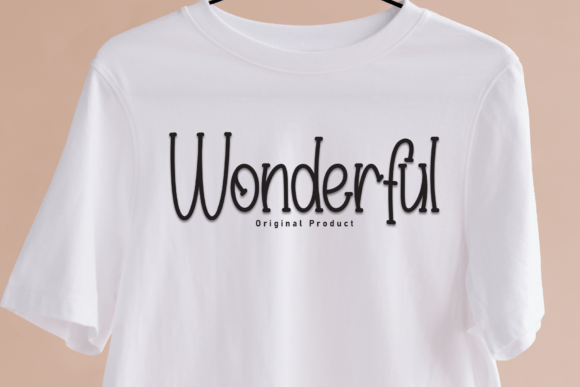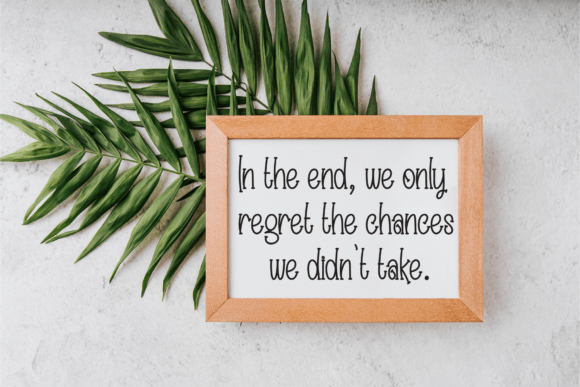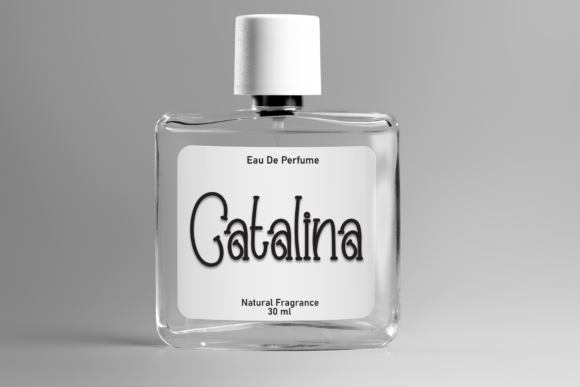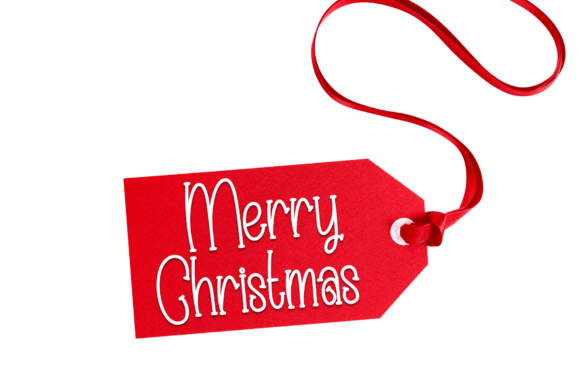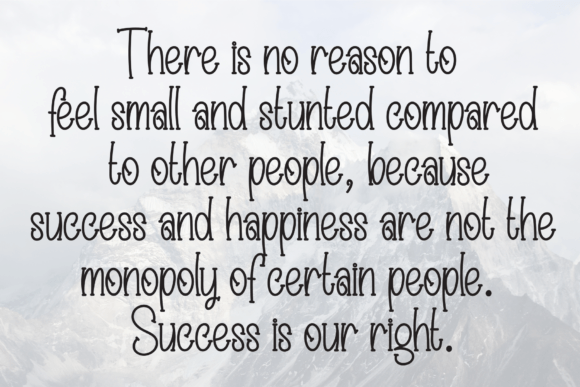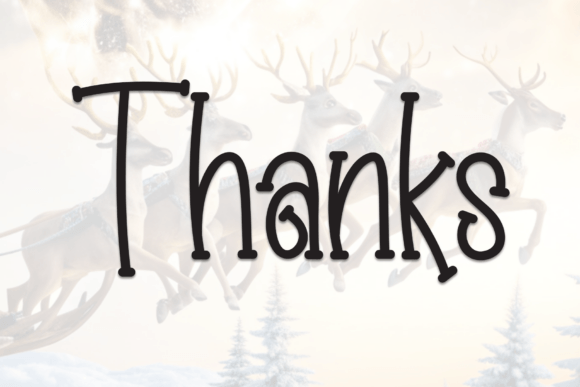
Introduction to Happy Reindeer Font
Happy Reindeer is a sweet and friendly handwritten font.
Key Features of Happy Reindeer Font
Why Choose Happy Reindeer Font?